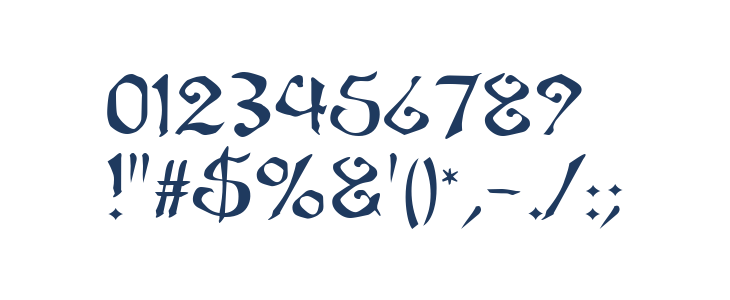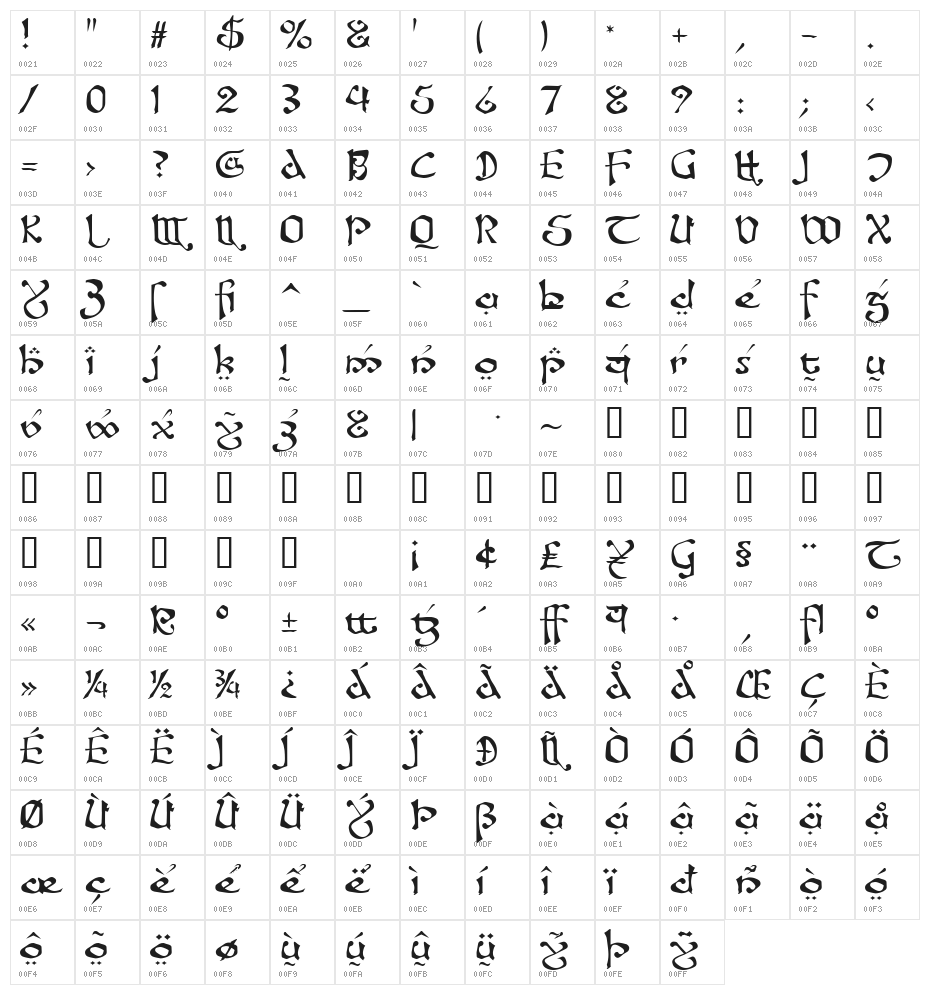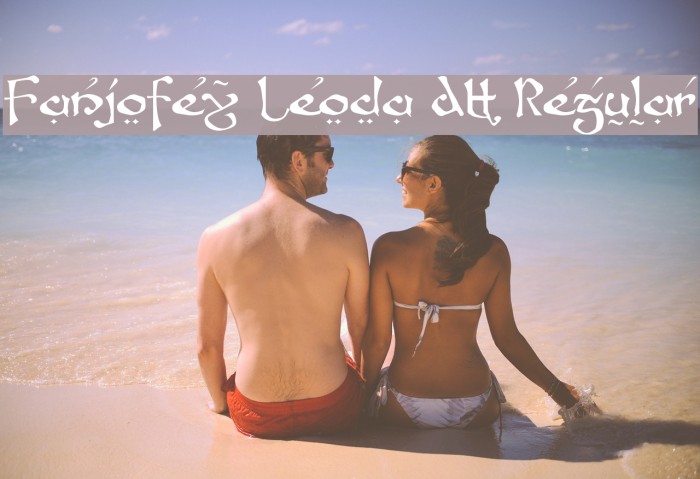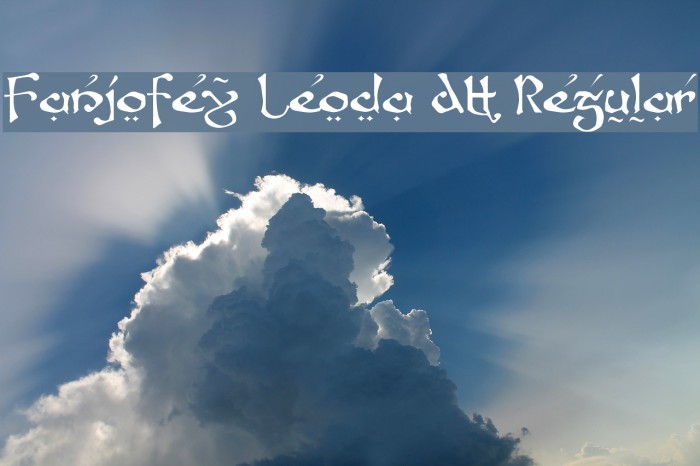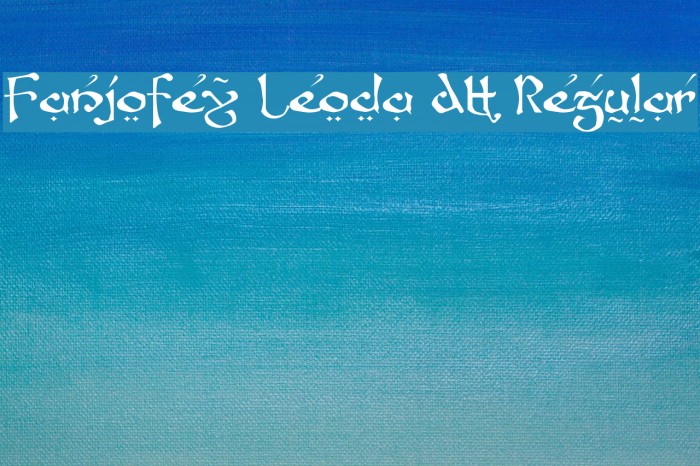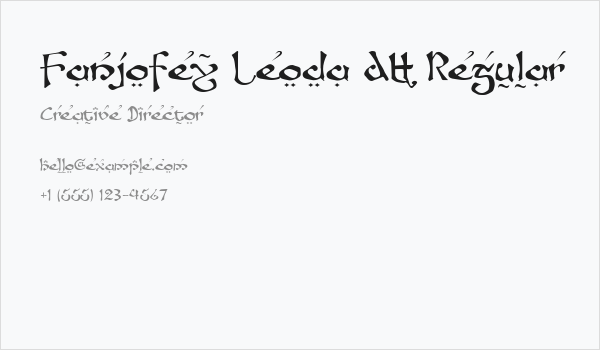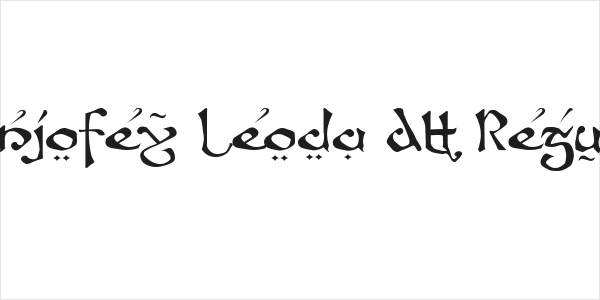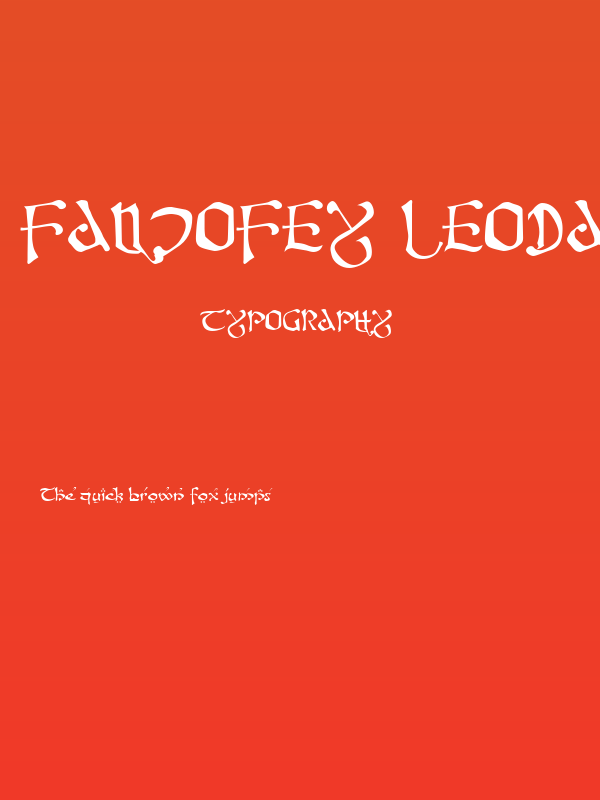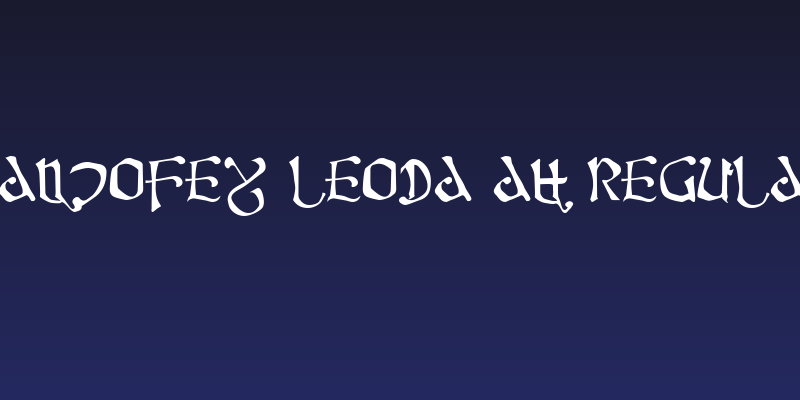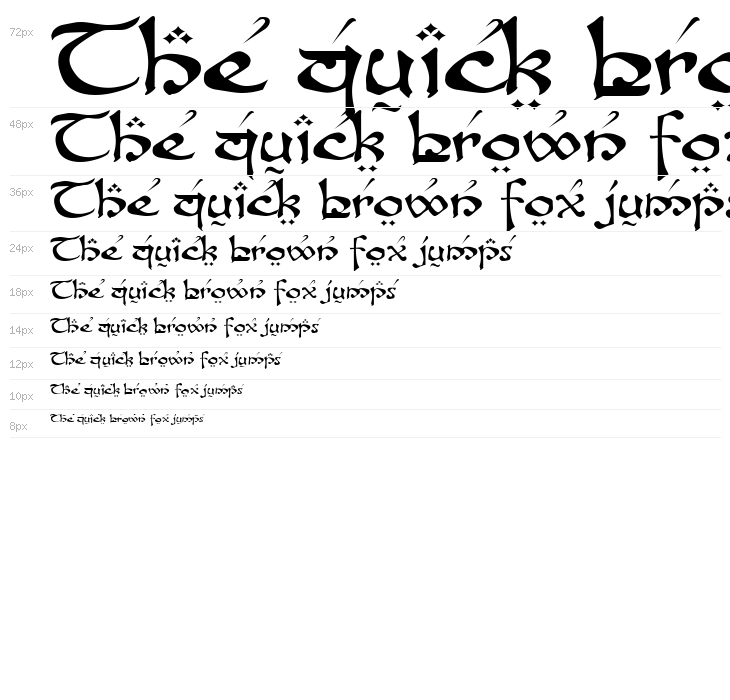
Fanjofey Leoda AH Regular Font
Fanjofey Leoda AH Regular Description
This font features a unique and artistic design with a medieval and gothic influence. The characters are adorned with intricate details and flourishes, giving them a decorative and ornate appearance. The uppercase letters have a strong presence with bold strokes and sharp angles, while the lowercase letters maintain a consistent style with slightly more fluidity. Numbers and special characters are designed to match the overall aesthetic, ensuring a cohesive look. The font's distinct style makes it suitable for projects that require a touch of elegance and historical charm.
| Overall Style | Gothic, Decorative |
| Proposed Projects | Ideal for medieval-themed designs, fantasy book covers, historical event posters, and decorative invitations. |